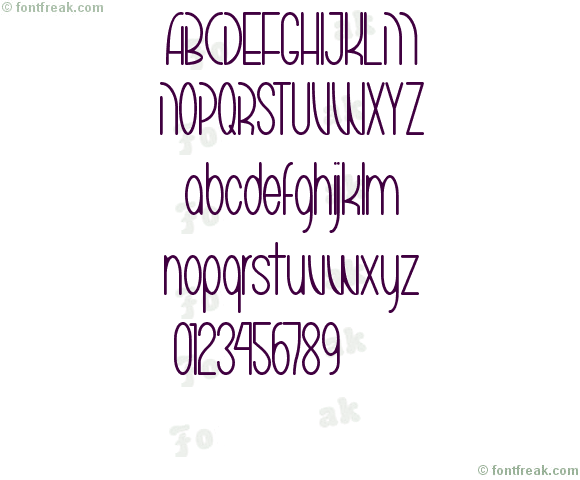
Mariko Chan
Mariko Chan Thin
Mariko Chan by Michael Muranaka is a captivating display typeface that seamlessly blends playful charm with modern design. This sans-serif font features a unique combination of rounded forms and thin strokes, offering a sense of lightness and approachability. The gentle curves and consistent stroke weight create a harmonious visual flow, making it an ideal choice for various creative applications. The generous spacing between characters enhances readability while maintaining an airy feel, perfect for catching the eye without overwhelming the viewer.
This font is well-suited for a variety of specific use cases, including wedding invitations that call for a touch of whimsy, movie posters that need an upbeat vibe, restaurant menus aiming for a contemporary look, and branding materials for small businesses seeking to convey friendliness and creativity. Graphic designers will find Mariko Chan particularly appealing as it provides an effective way to communicate a brand's personality. Additionally, content creators can leverage this font in social media graphics, ensuring their posts stand out in a crowded digital landscape.
The target audience for Mariko Chan includes small business owners, creative professionals, and anyone looking to add a distinctive flair to their projects. The font's versatility allows it to fit into various themes, from casual to chic, making it a valuable addition to any designer's toolkit.
What sets the Mariko Chan font apart is its ability to evoke a sense of joy and warmth while maintaining professionalism. Its unique characteristics and free availability make it an attractive option for those seeking a fresh, modern typeface. Don’t miss out on the opportunity to enhance your design projects with the Mariko Chan font free download, a choice that promises to elevate your creative endeavors.